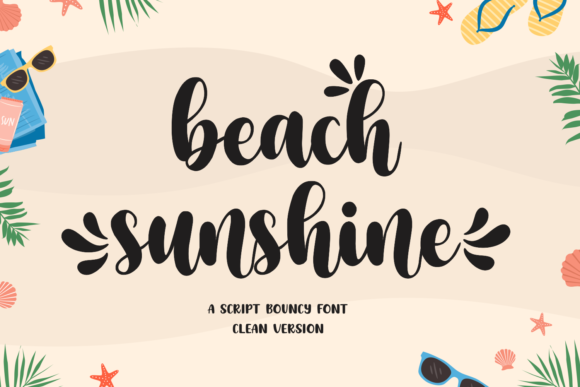
Step into the realm of sun-kissed aesthetics and enchanting artistry with Beach Sunshine Font, a captivating script typeface meticulously crafted by Mozatype. This elegant font exudes a refreshing summer vibe, reminiscent of carefree days spent basking in the golden glow of coastal bliss. Embrace the charm of its distinct and well-rounded letters, each stroke infused with the essence of joy and playfulness. Beach Sunshine Font beckons you to create designs that radiate warmth and happiness, leaving an enduring impression on your audience.
Immerse yourself in the carefree spirit of holidays with Beach Sunshine Font. Its whimsical style and bouncy demeanor make it the perfect choice for adding a touch of magic to your designs. Imagine beach-themed invitations that evoke the sound of crashing waves and the scent of salty air, or greeting cards that transport recipients to a tropical paradise. The possibilities are endless with this versatile font, allowing you to craft designs that capture the essence of summer living and ignite a sense of wanderlust in every heart.
Unleash your creativity and embrace the boundless charm of Beach Sunshine Font. Its meticulous design and effortless flow make it a versatile tool for a wide range of projects. From branding and marketing materials to social media posts and website designs, Beach Sunshine Font adds a touch of sunshine and sophistication to any visual concept. Let your imagination soar as you explore the myriad ways to incorporate this delightful font into your graphic designs, creating masterpieces that exude summer vibes and leave a lasting impression on your audience.
With Beach Sunshine Font, you'll embark on a creative journey filled with joy and inspiration. Its enchanting beauty and boundless versatility will captivate your audience, leaving them spellbound by the sheer brilliance of your designs. Dive into the world of Beach Sunshine Font today and transform your creative vision into reality.